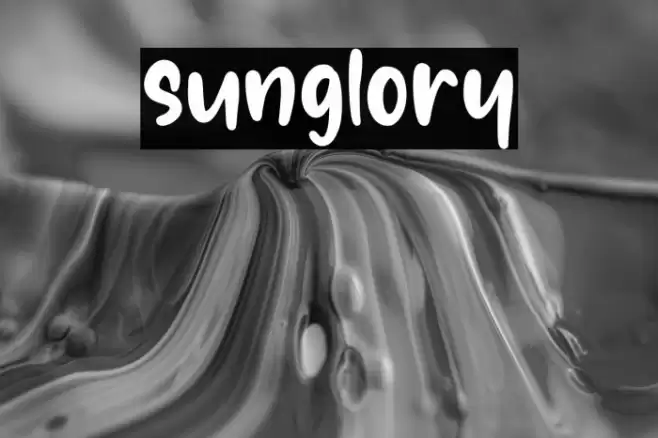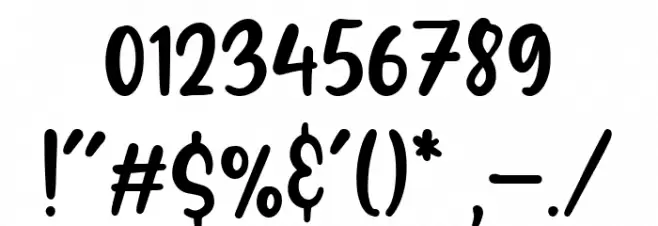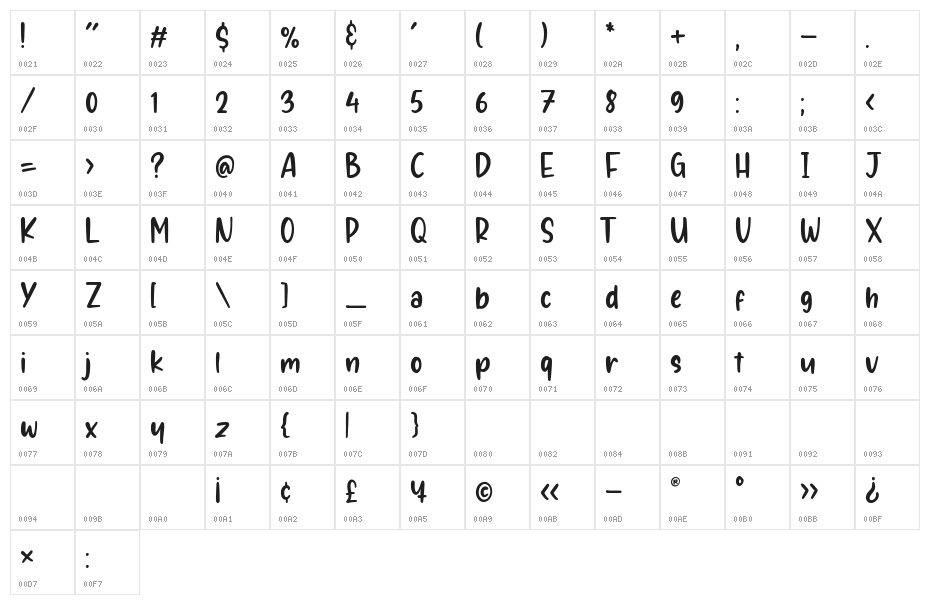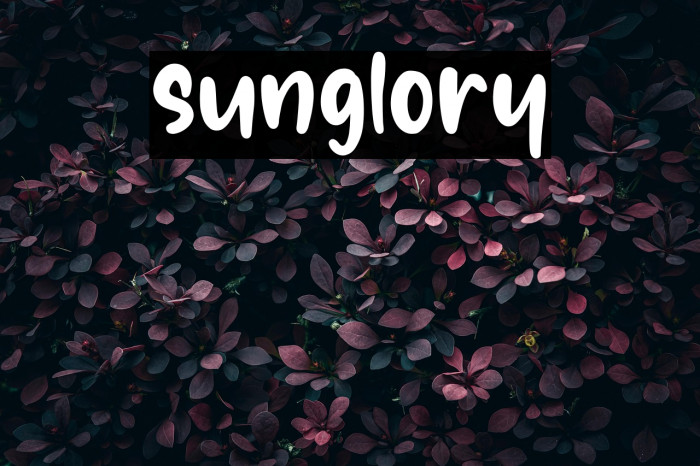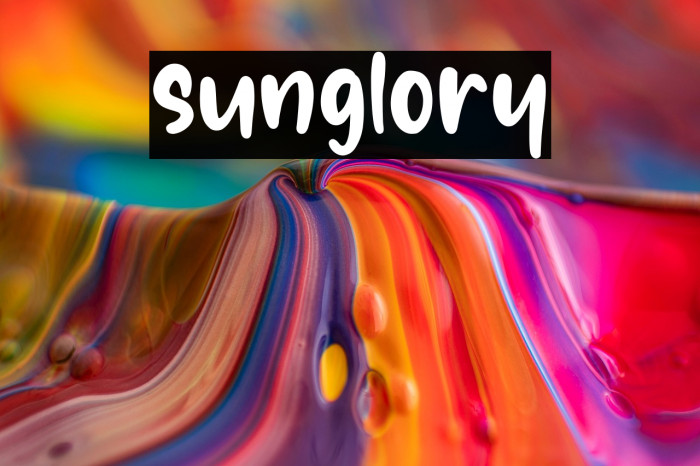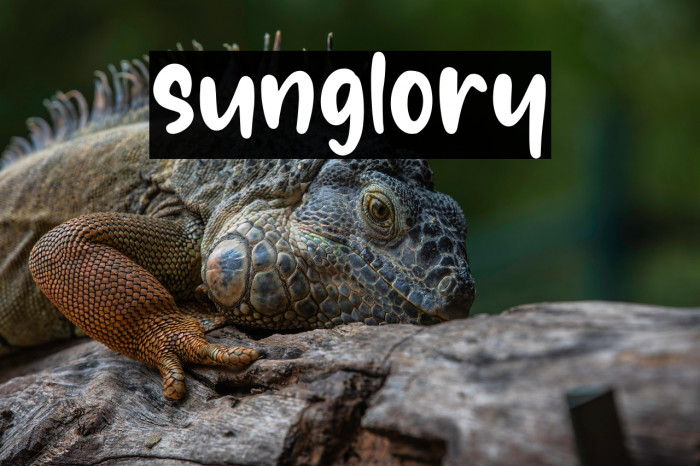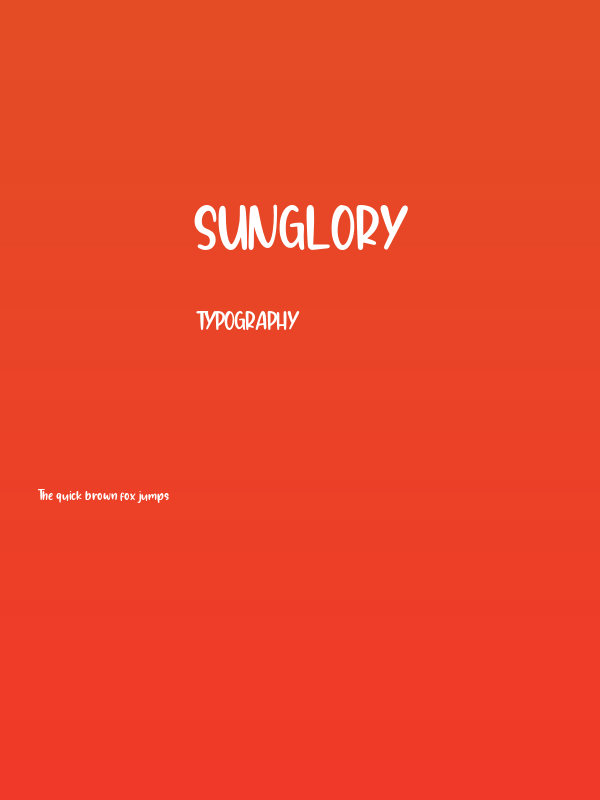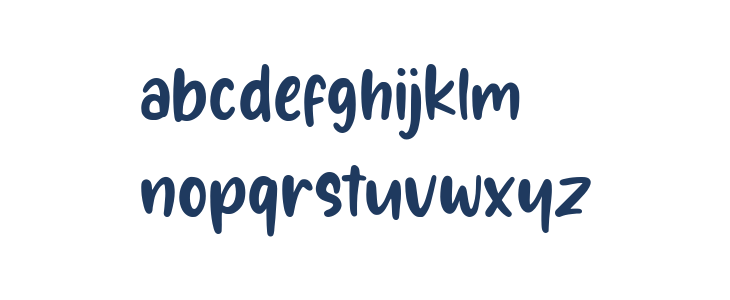
sunglory Font
sunglory Description
This font features a playful and casual handwritten style with smooth, rounded edges and a slightly irregular baseline, giving it a friendly and approachable appearance. The letters are bold and have a consistent stroke width, which enhances readability while maintaining a whimsical charm. The uppercase and lowercase letters are well-balanced, with a slight slant that adds to the informal feel. The numerals and special characters are designed to match the overall style, ensuring a cohesive look across all text elements.
A playful, bold handwritten font with smooth, rounded edges and a casual feel from Uncategorized fonts.
- Proposed Projects: Ideal for children's books, greeting cards, playful branding, and social media graphics.
- Overall Style: Casual
- Use Case: Headlines, Logos, Social media graphics